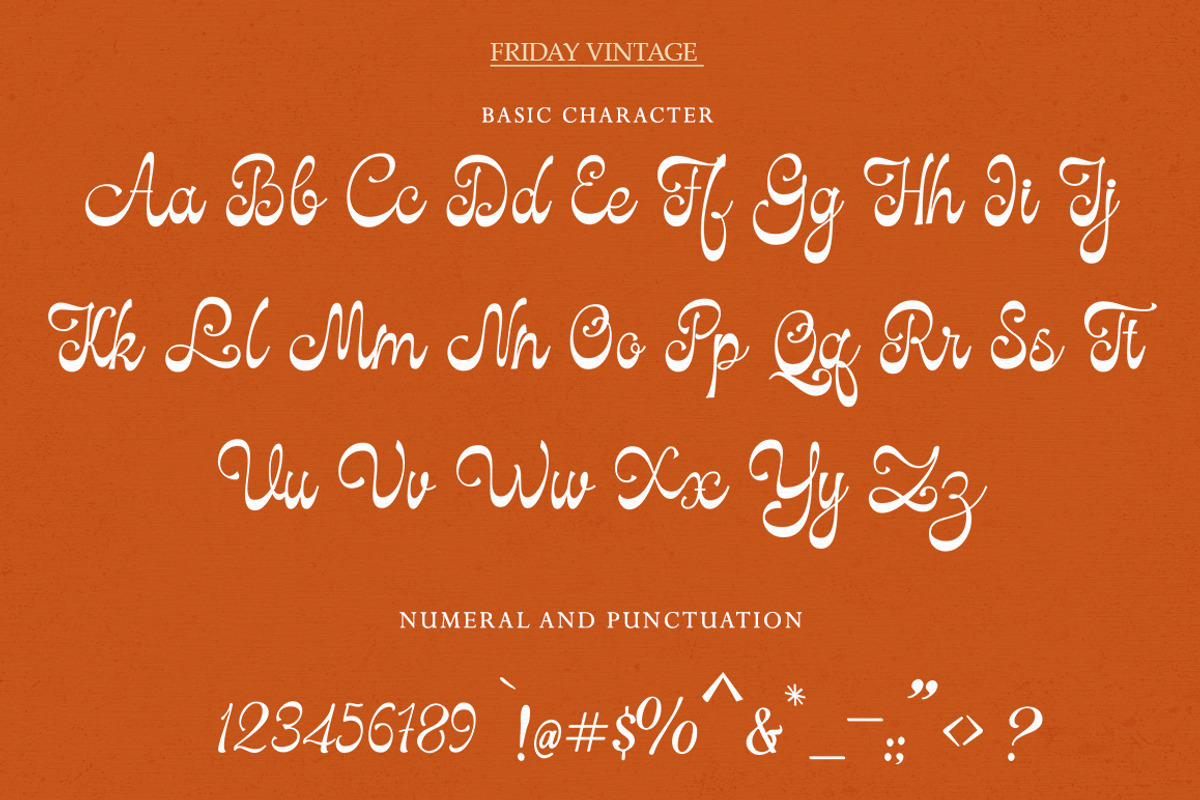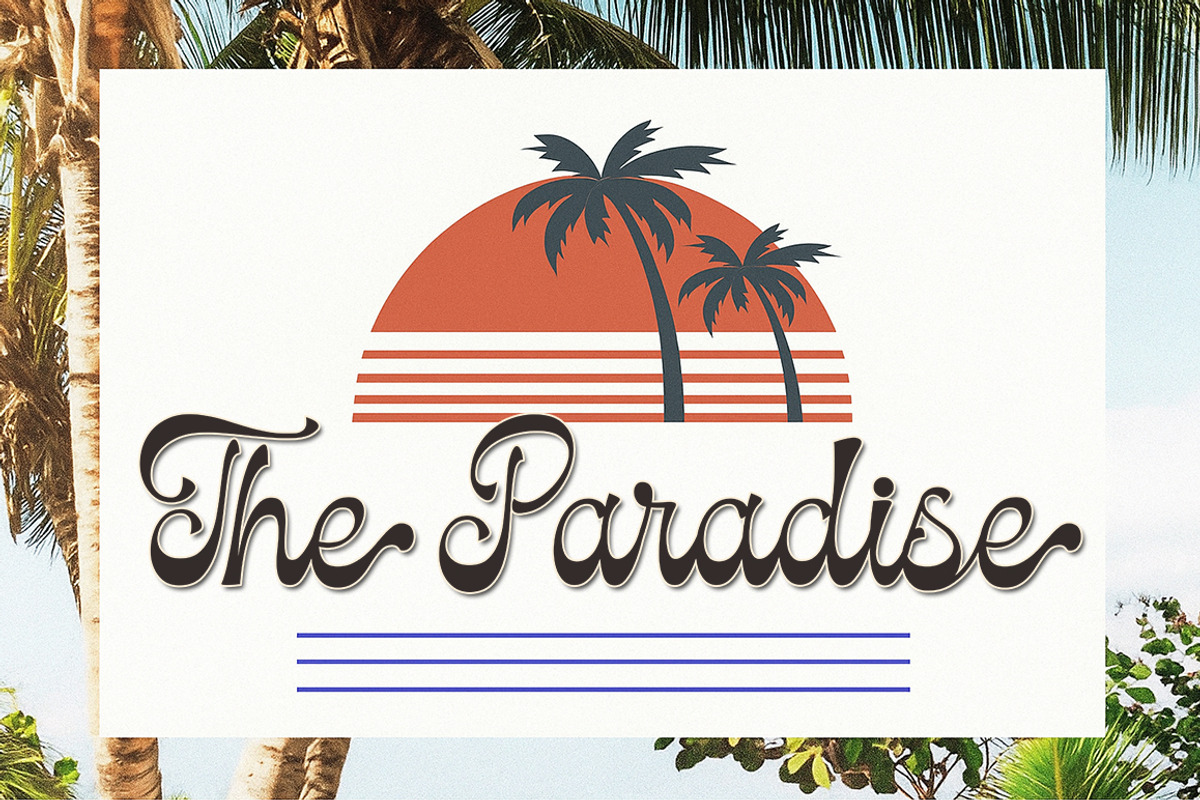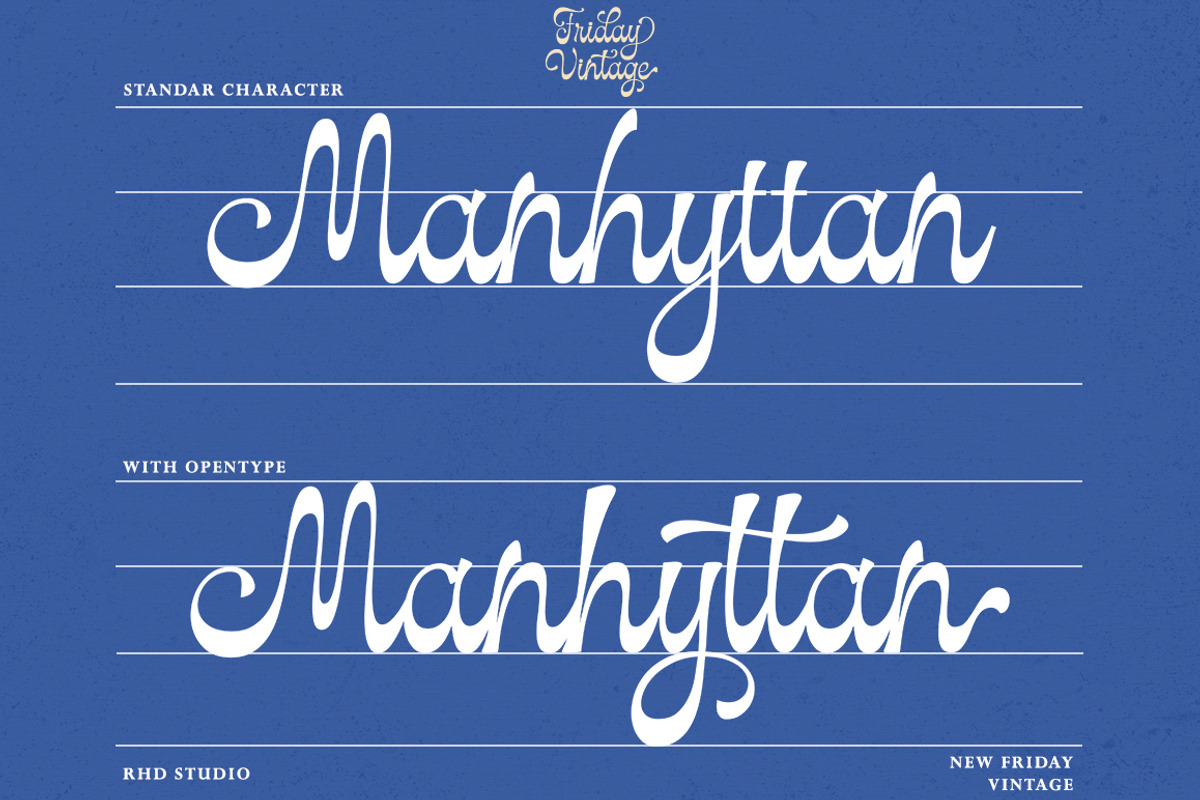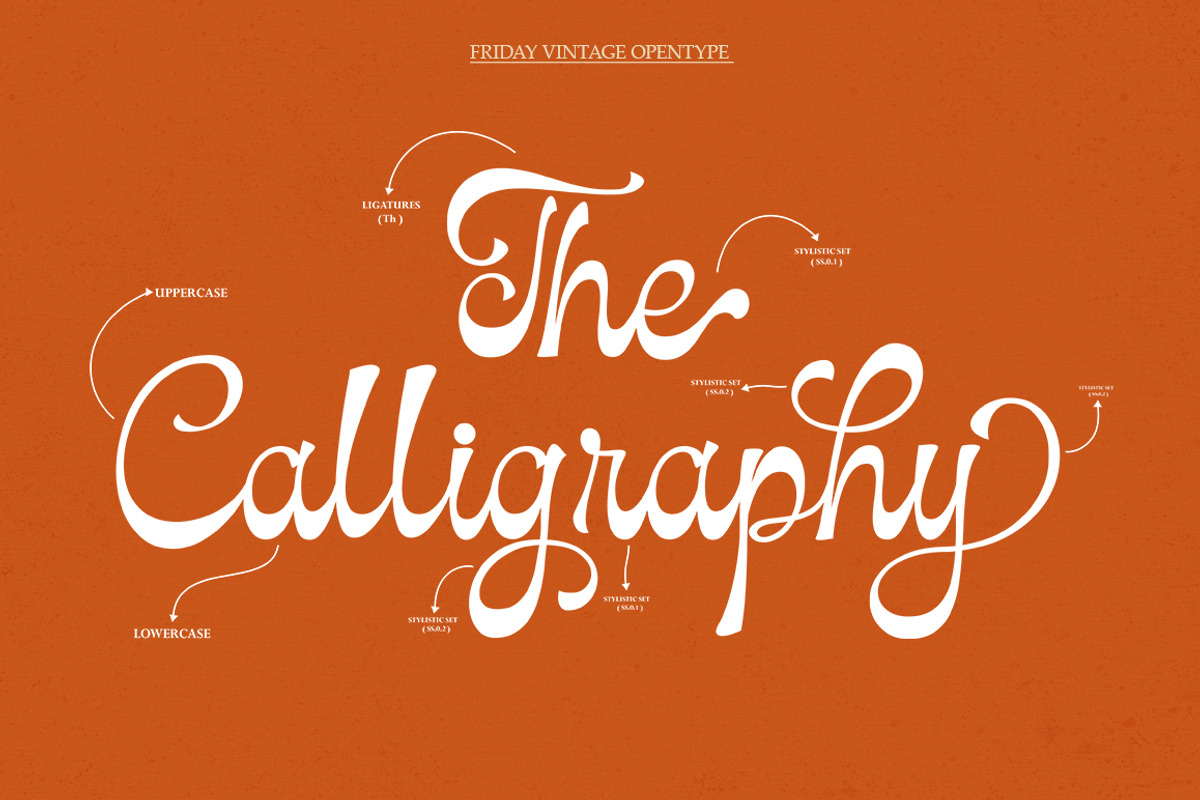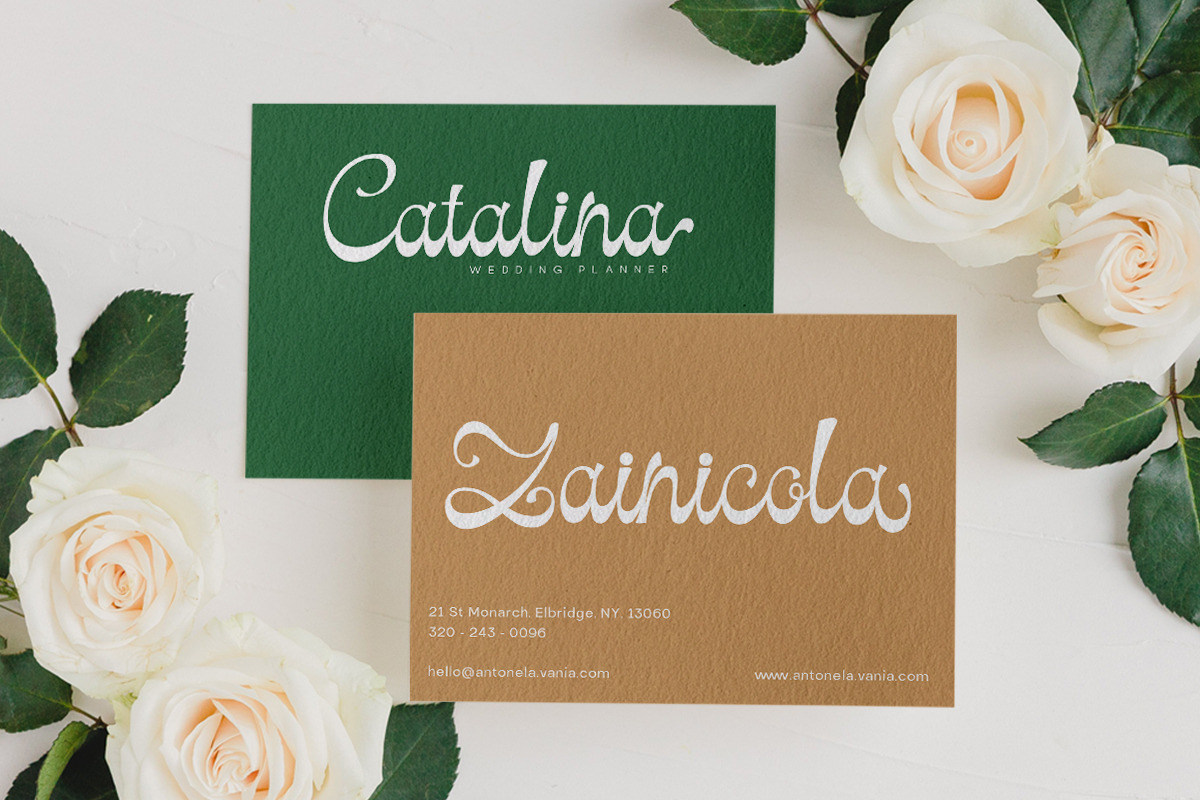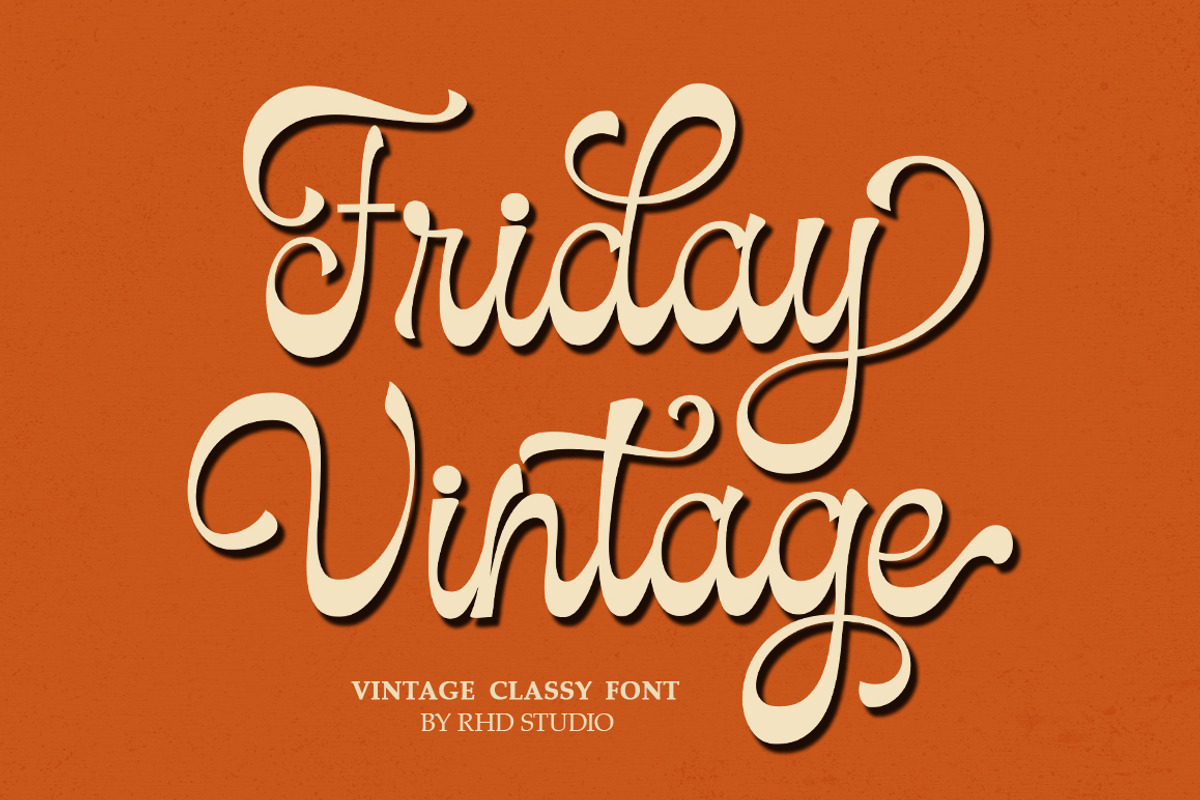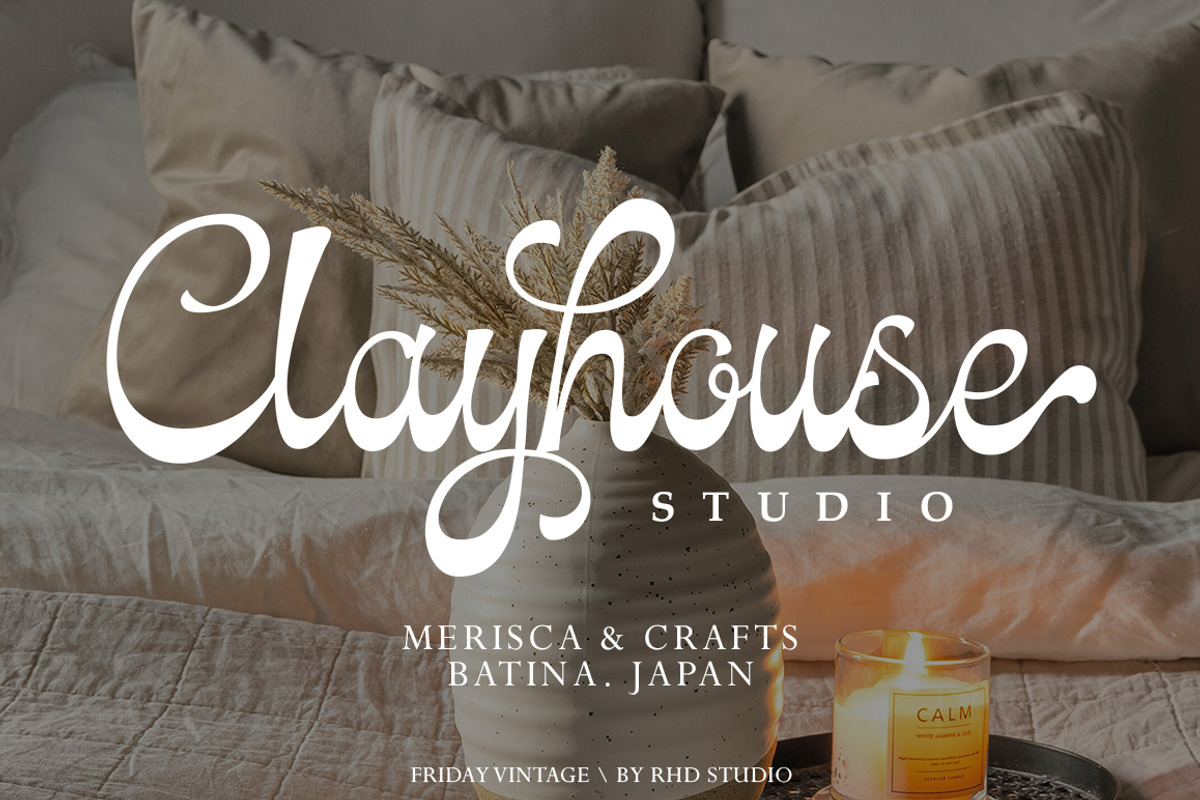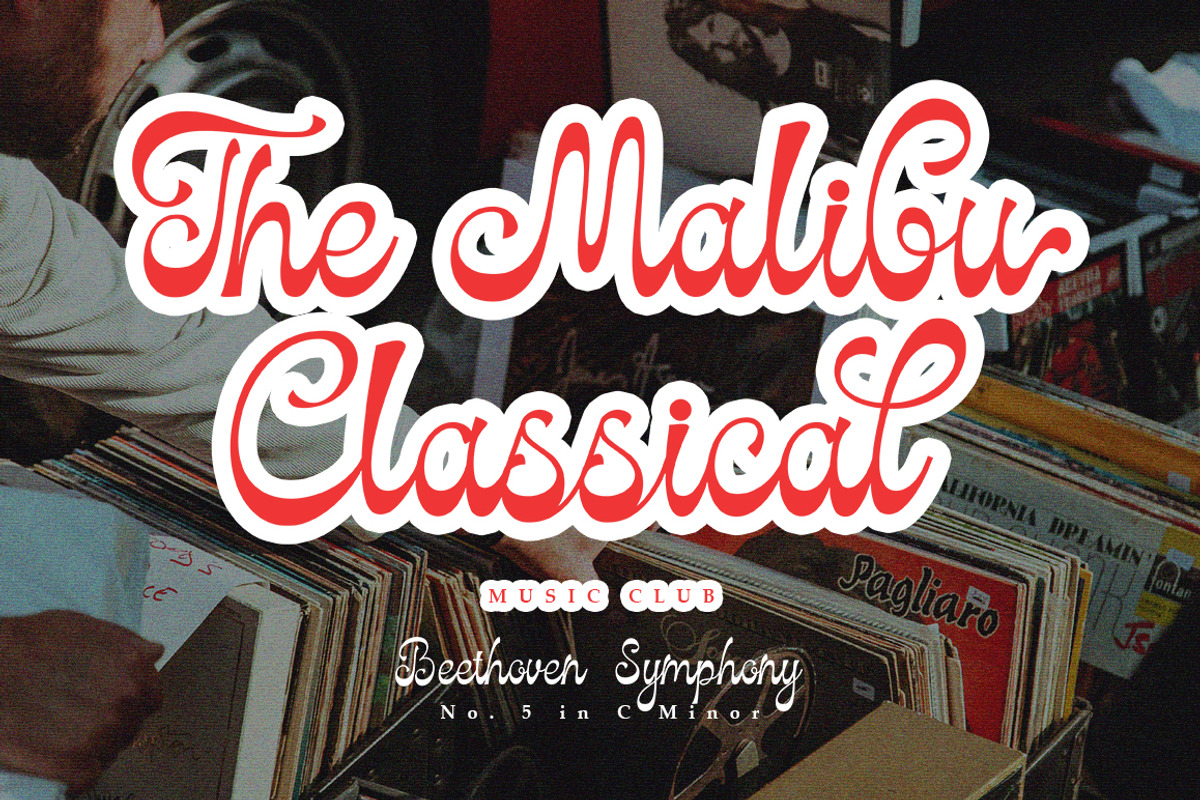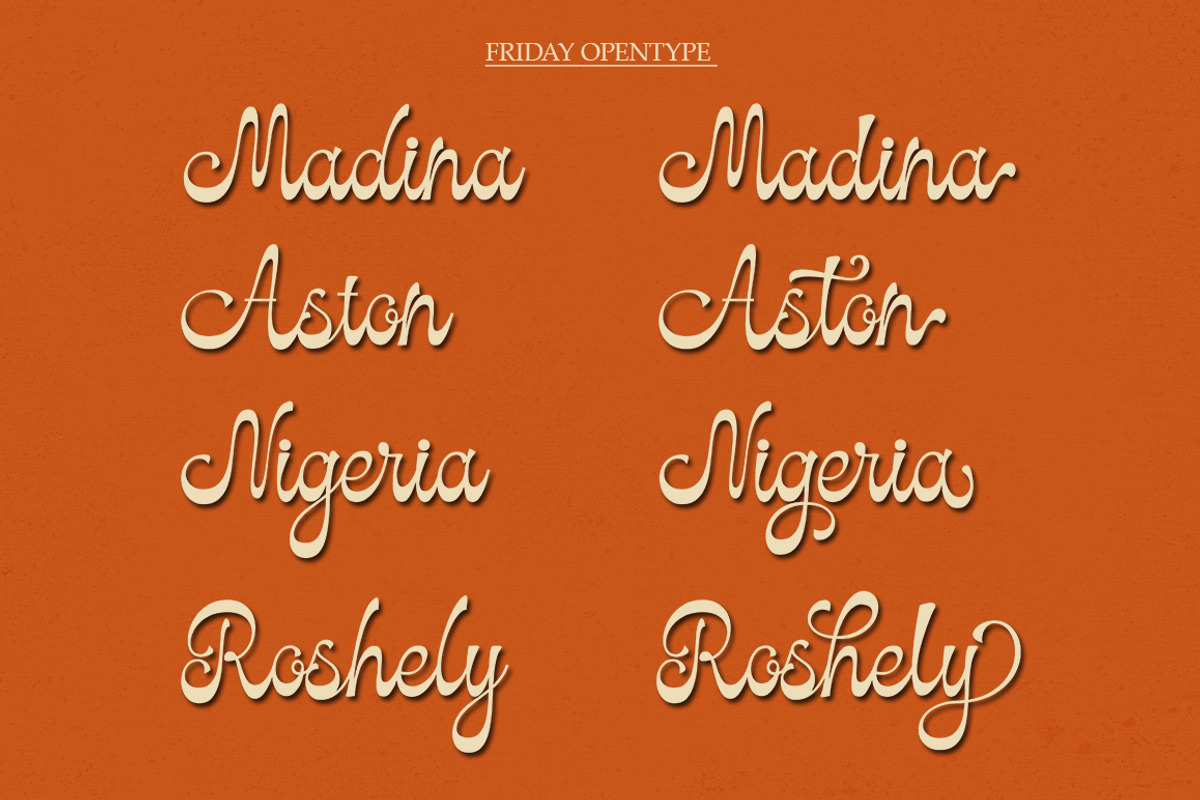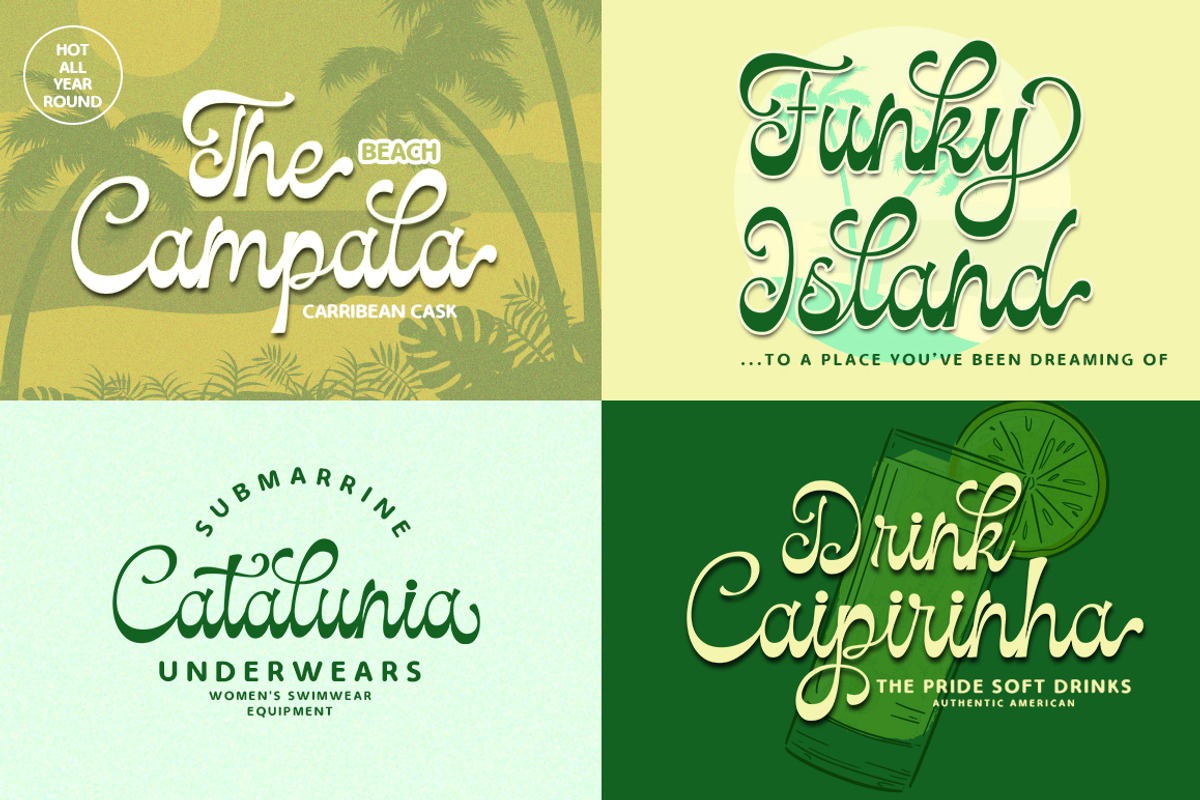
Friday Vintage
Friday Vintage is a modern classic style script font inspired by classic handwriting in books. This font is complete with 90+ style sets, Contextual Alternatives, ligatures and also multi-language support which adds aesthetics that make your work even more attractive.
This font is perfect for your creative projects like Logotype, printed quotes, invitations, cards, product packaging, headers, Letterheads, Apparel, Web design, Magazines, Books, etc.